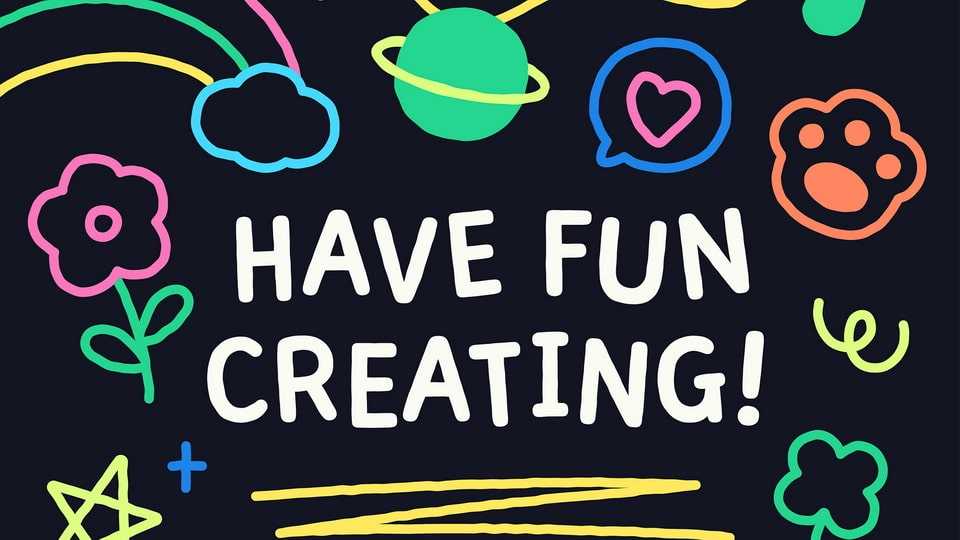
Download Chiicory font, a friendly and cute handwritten typeface that adds a touch of warmth and charm to your designs. Chiicory font features soft letterforms with a delightful hand-drawn quality
Designer: Meo Mii